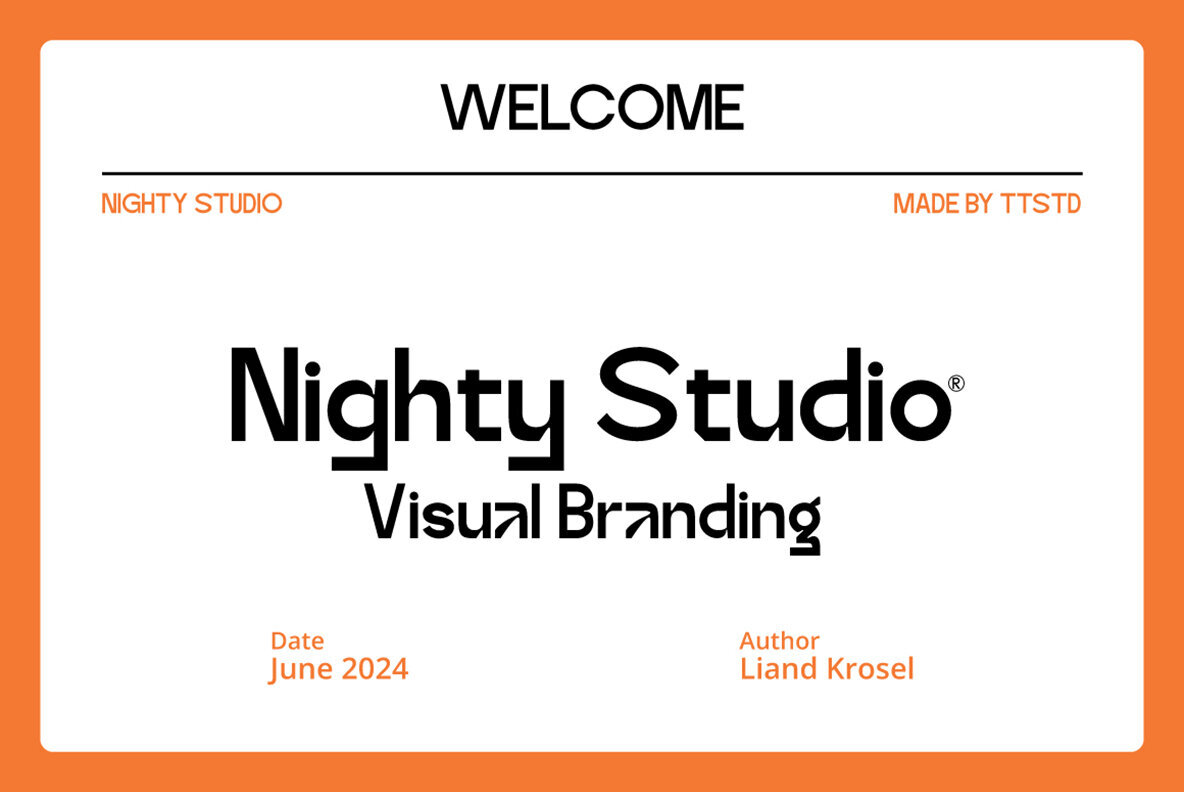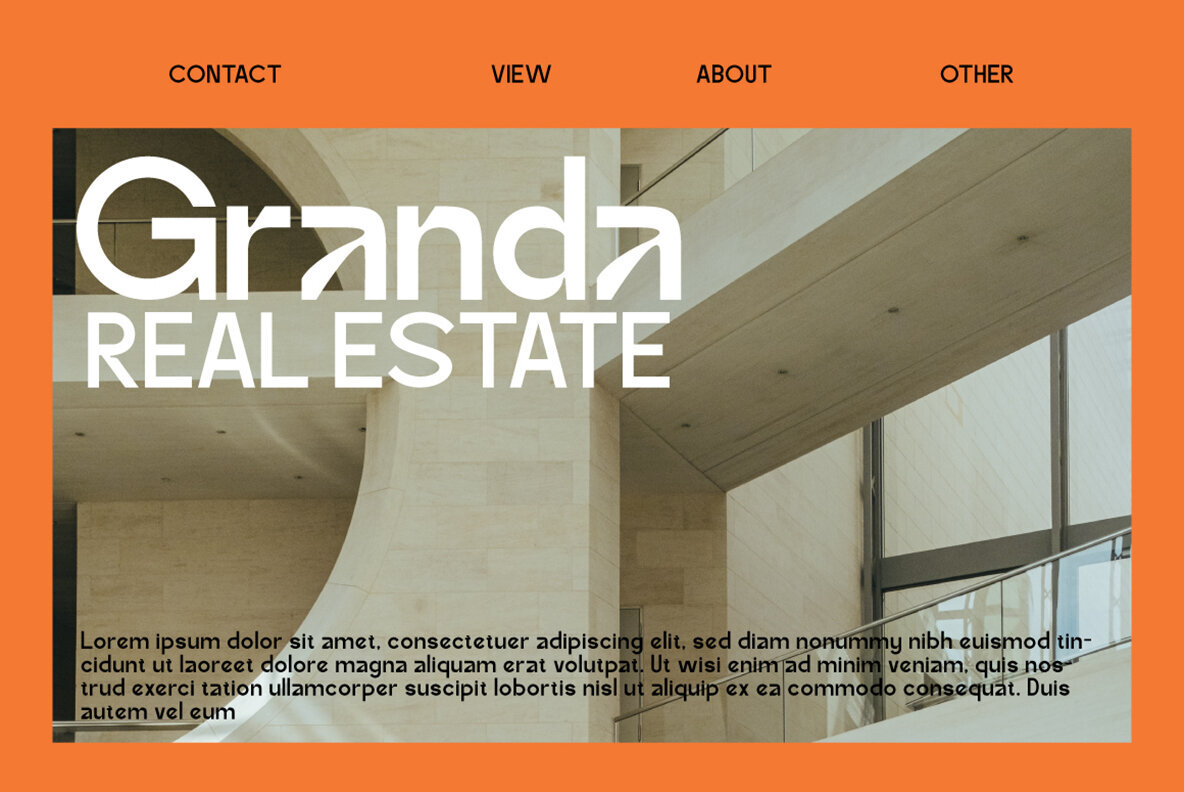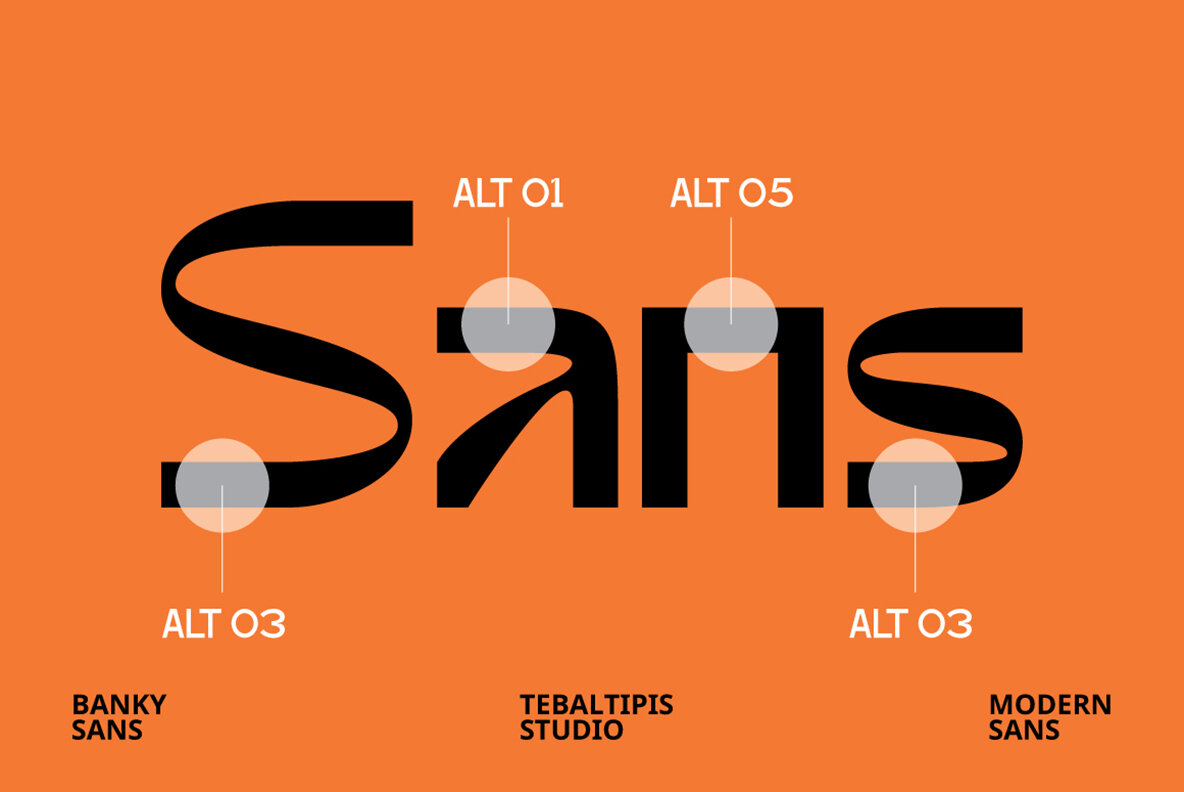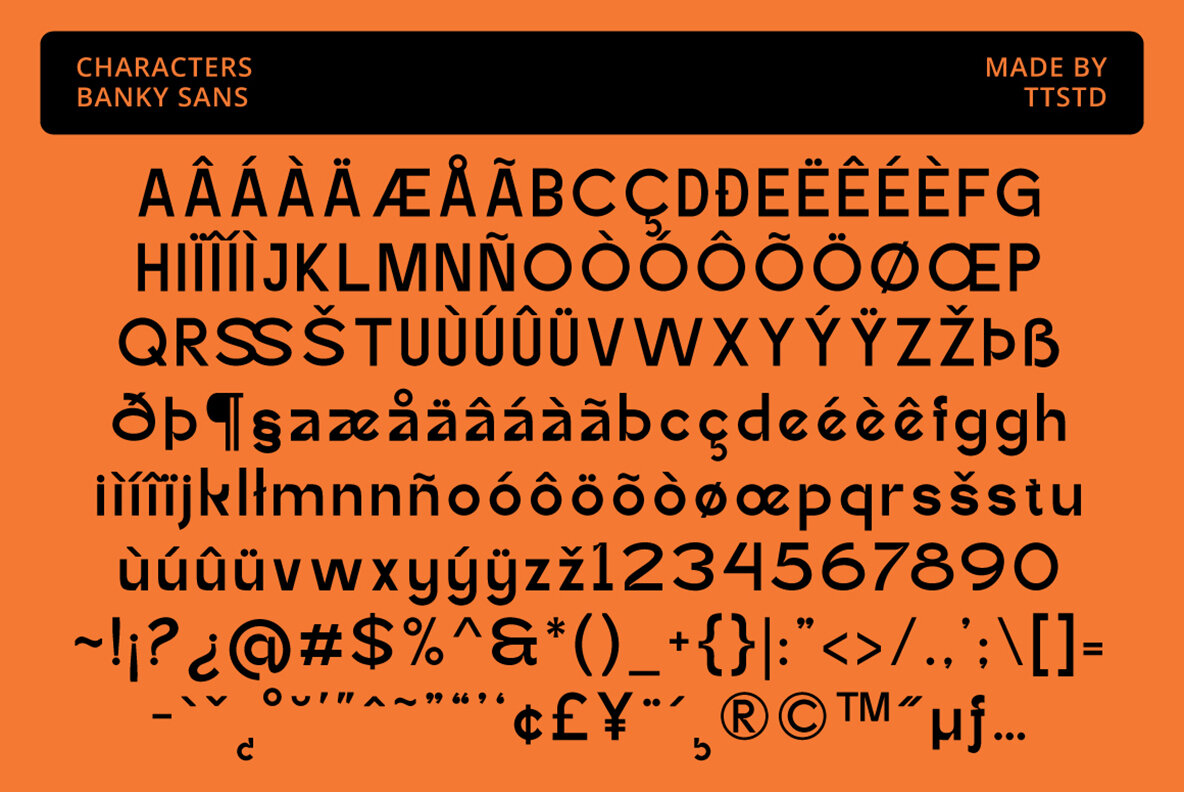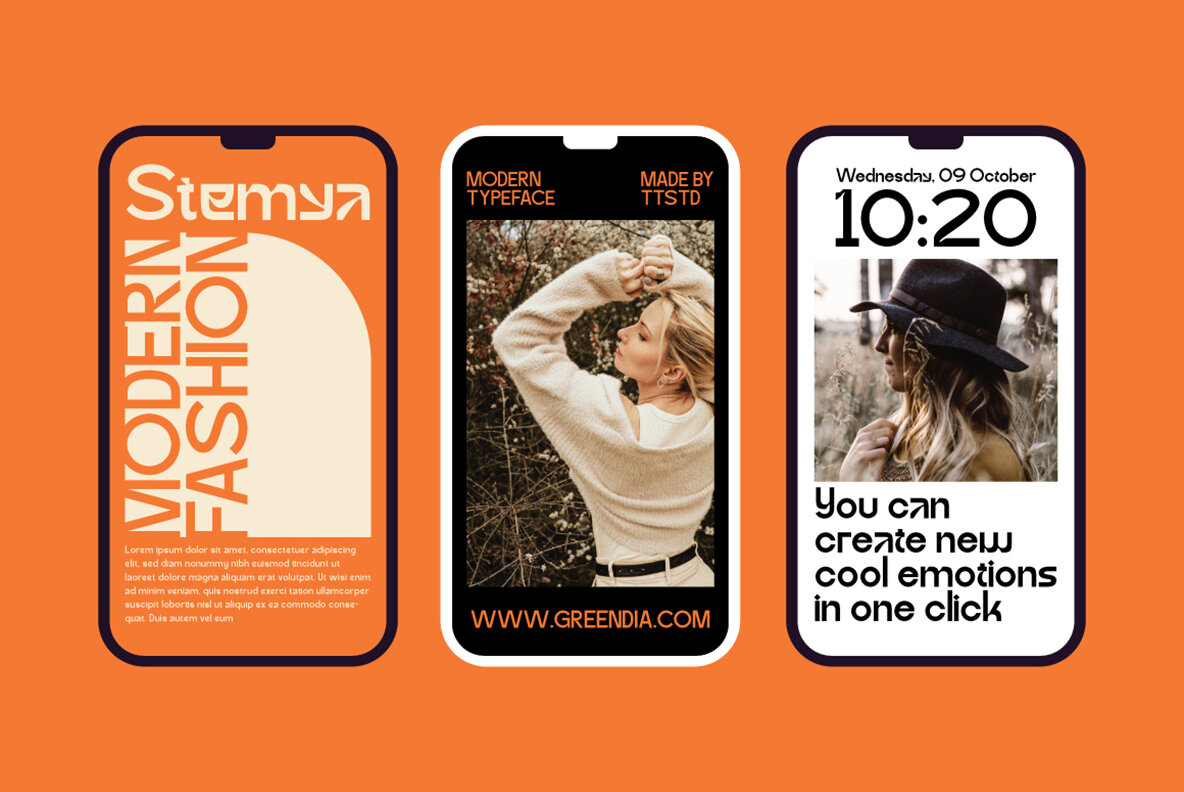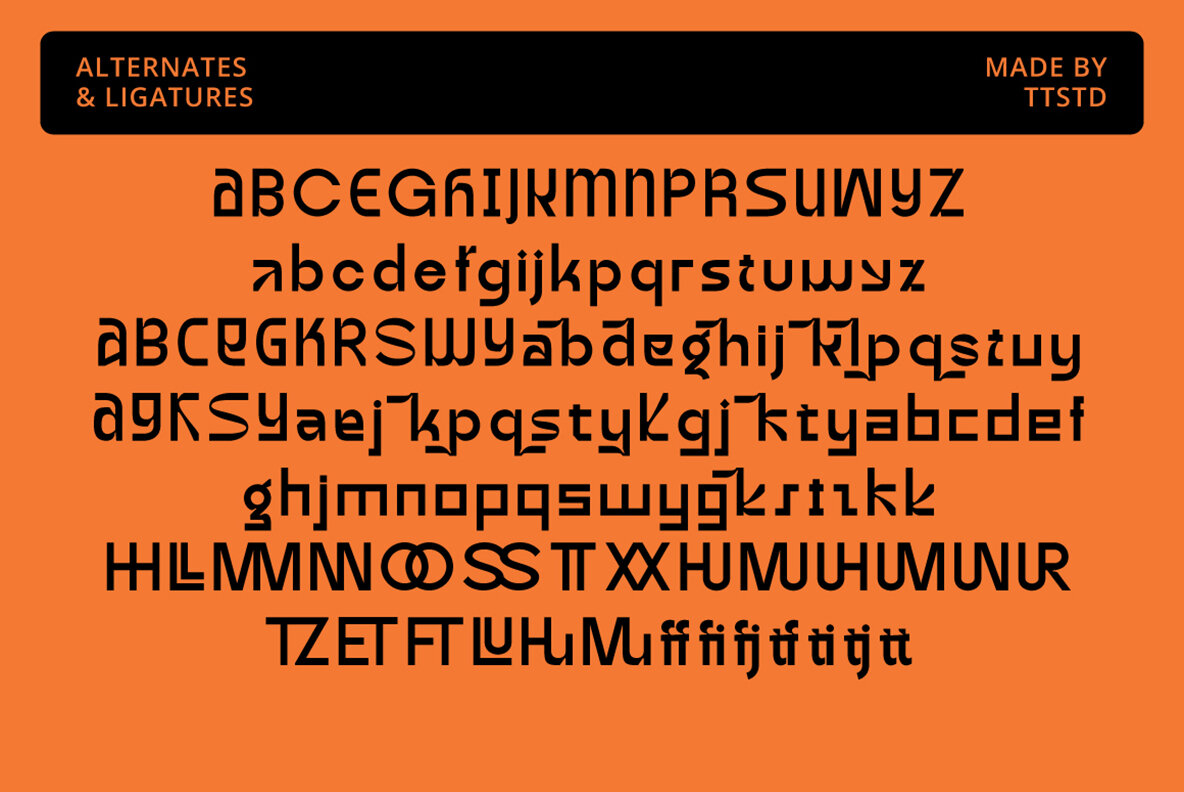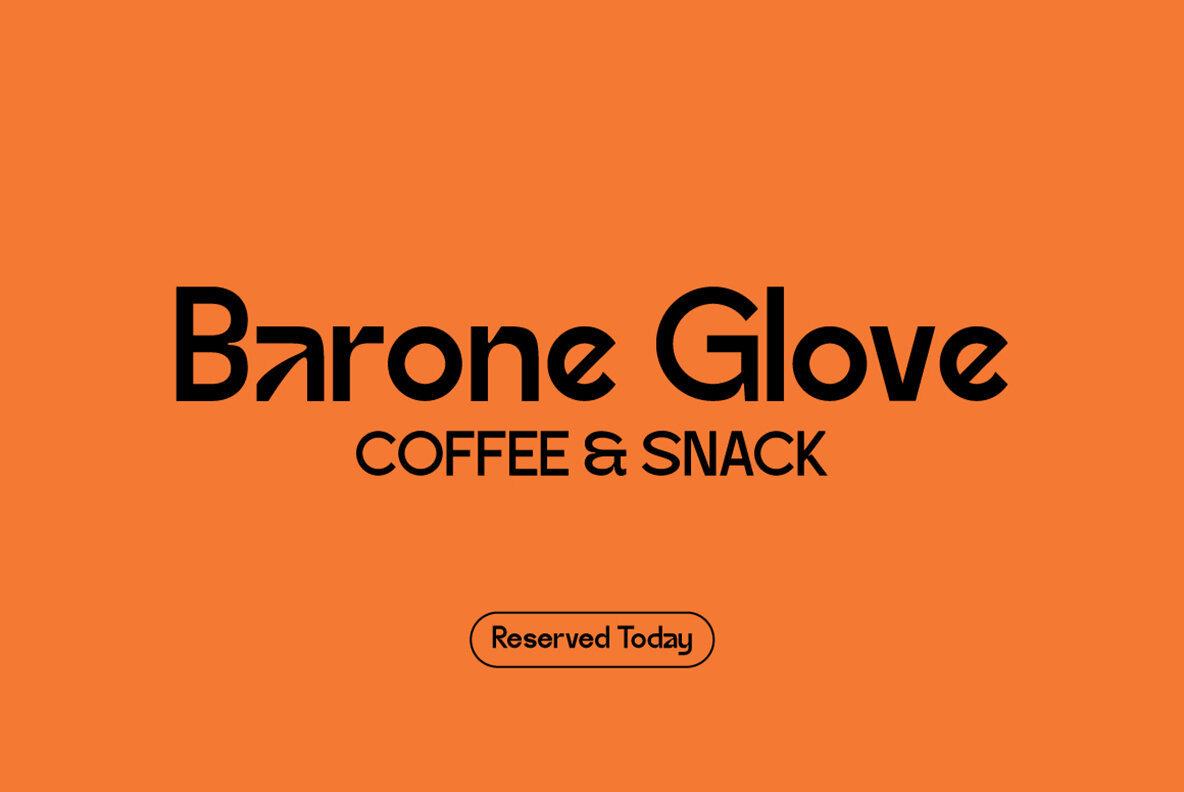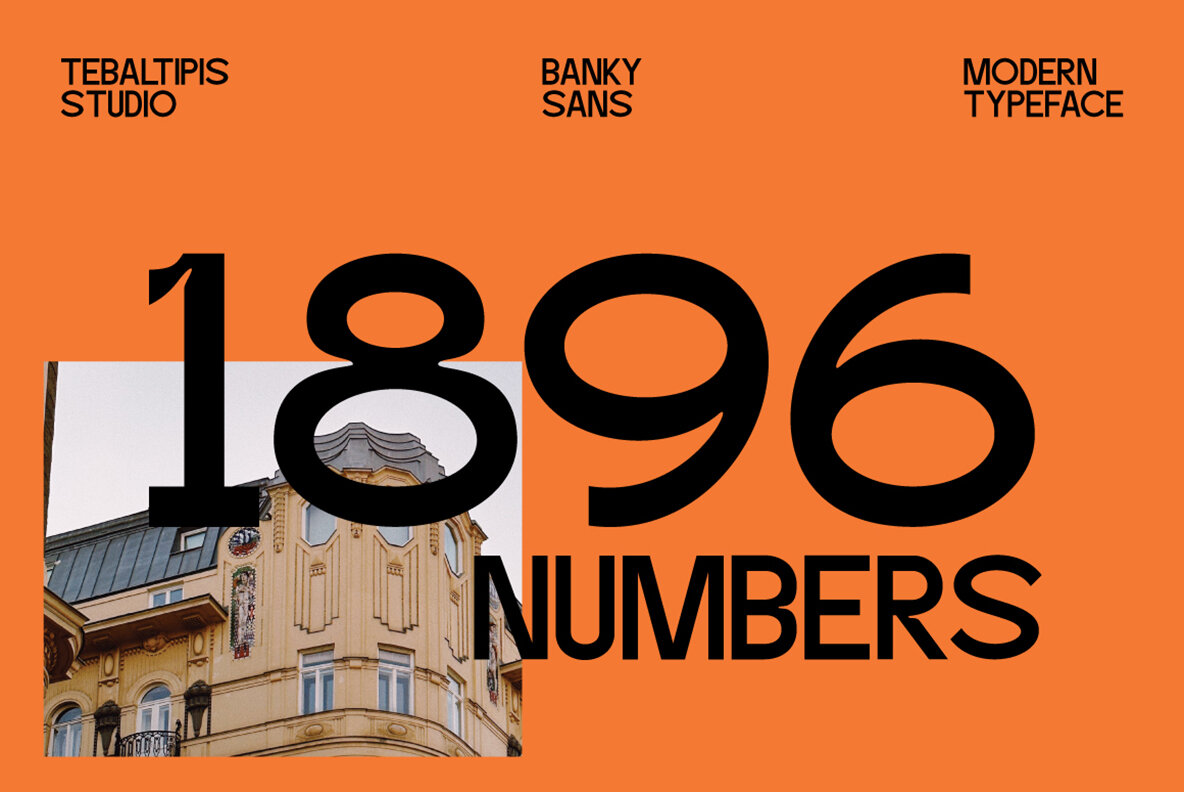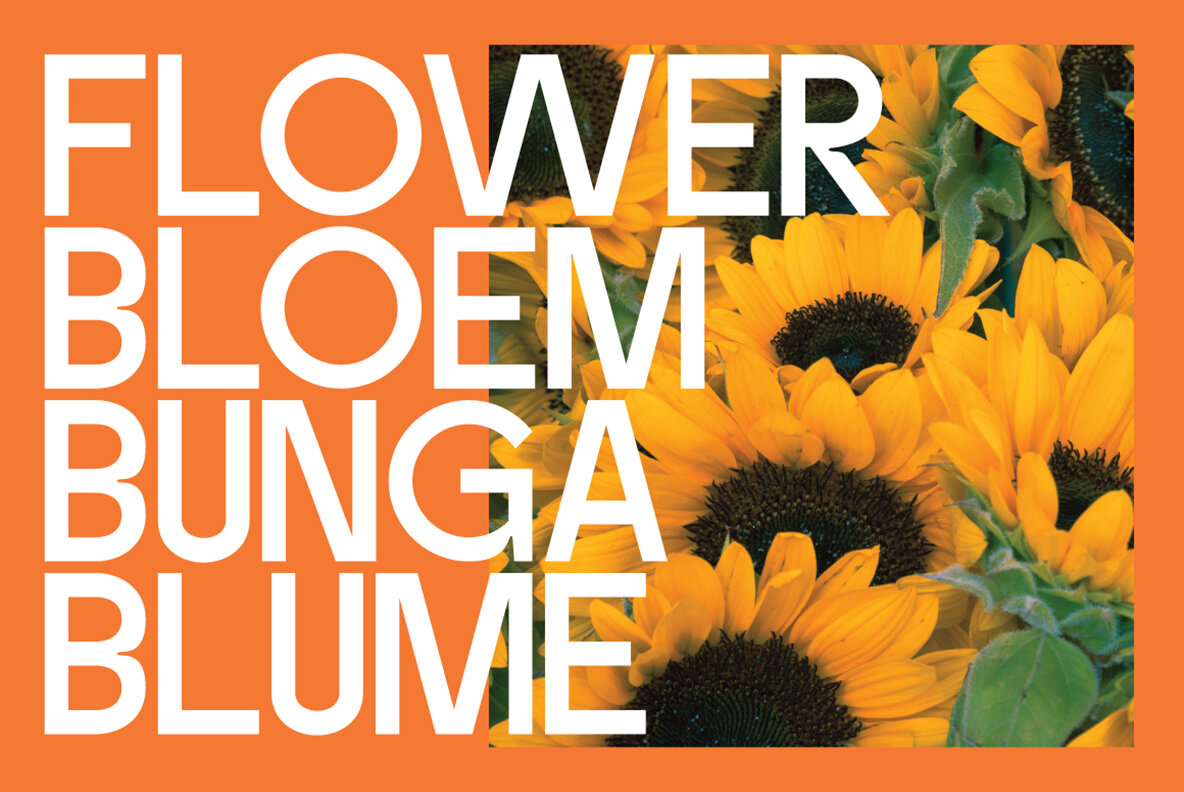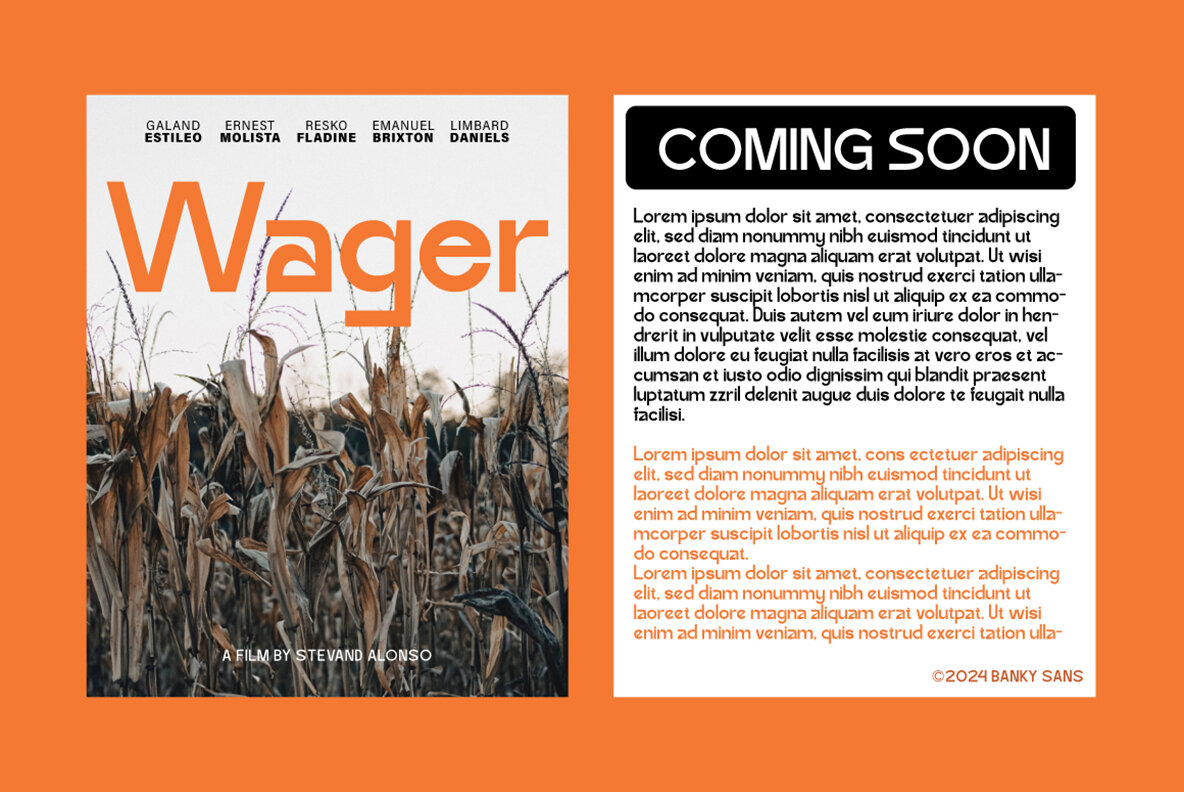
Banky Sans Font
Banky Sans Regular
Banky Sans is a font crafted specifically for headlines, titles, and other typographical needs that require standout elegance. This font is perfect for showcasing your style and delivering headlines that leave a lasting impression. Enhancing any project, Banky Sans combines a unique style with modern aesthetics, allowing your main ideas to shine through. Banky Sans Font includes over 250 glyphs. The alternative characters are divided into several Open Type features such as Swash, Stylistic Sets, Stylistic Alternates, and Ligature. These features can be accessed using Open Type savvy programs like Adobe Illustrator, Adobe InDesign, Adobe Photoshop, Corel Draw X version, and Microsoft Word. The font also comes with PUA unicode, allowing craftsmen and designers easy access to all alternate characters.Banky Sans: Bold and Narrow Font for Impactful Headlines
Features of Banky Sans